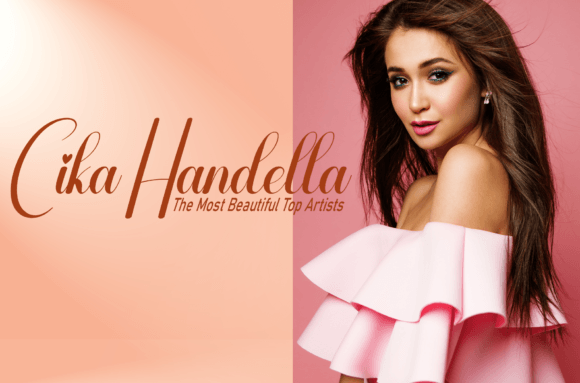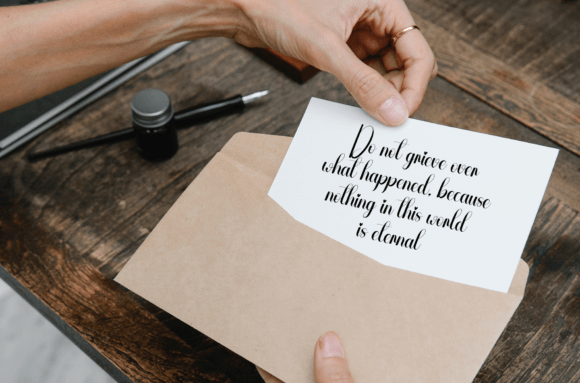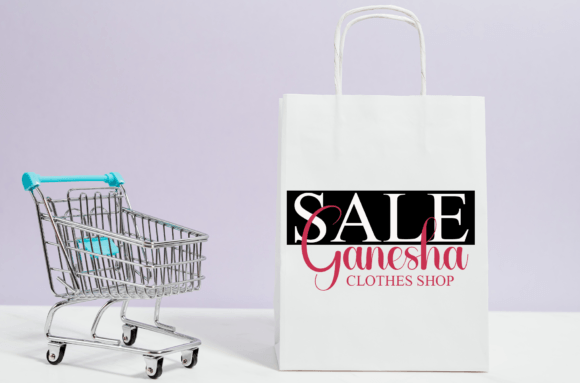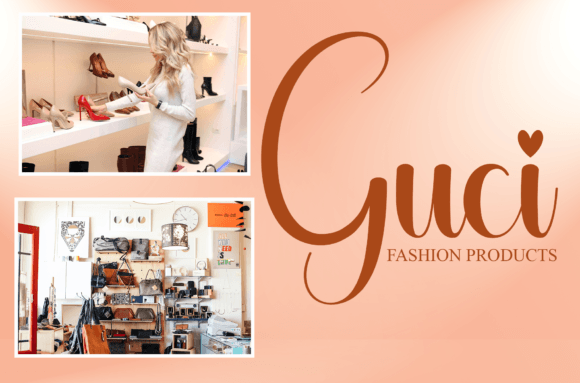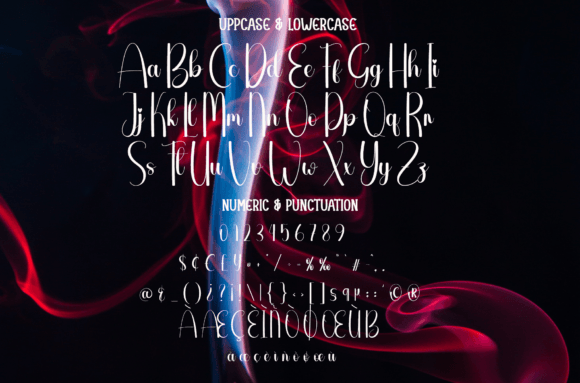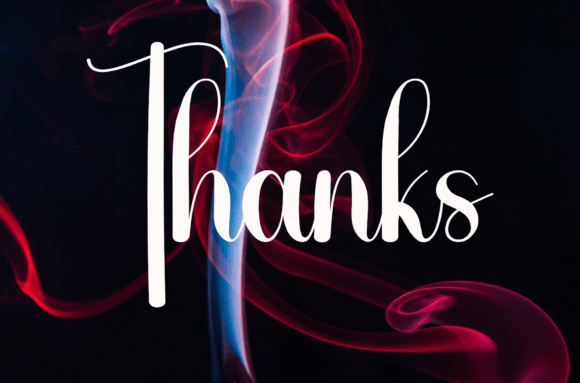
Introducing Effect Font: The Sweet and Friendly Handwritten Font for Your Creative Projects
Are you looking for a font that can add a touch of warmth and personality to your designs? Look no further than Effect Font, a sweet and friendly handwritten font that’s perfect for a variety of creative projects. In this article, we’ll explore the features and benefits of Effect Font, and show you how it can elevate your designs to the next level.
What is Effect Font?
Effect Font is a beautifully crafted handwritten font that’s fresh, neat, and full of character. Its sweet and friendly tone makes it ideal for designs that require a personal touch, such as wedding invitations, cards, and other special occasion materials. With its clean lines and elegant curves, Effect Font is sure to capture the hearts of designers and crafters alike.
Key Features of Effect Font
- Handwritten with love: Effect Font is carefully crafted to mimic the look and feel of handwritten text, giving your designs a personal and human touch.
- Fresh and neat: The font’s clean lines and simple shapes make it easy to read and versatile enough to use in a variety of contexts.
- Sweet and friendly tone: Effect Font’s friendly tone makes it perfect for designs that require a warm and approachable feel.
- Perfect for creative projects: Whether you’re designing wedding invitations, cards, or other special occasion materials, Effect Font is the perfect choice.
Use Cases for Effect Font
Effect Font is a versatile font that can be used in a variety of creative projects, including:
- Wedding invitations: Add a touch of elegance and romance to your wedding invitations with Effect Font.
- Cards and stationery: Use Effect Font to create beautiful and personalized cards and stationery for special occasions.
- DIY crafts: Effect Font is perfect for DIY crafters who want to add a personal touch to their projects, such as scrapbooking, journaling, and more.
- Digital designs: Use Effect Font in your digital designs, such as social media graphics, blog posts, and more.
Why Choose Effect Font?
With so many fonts to choose from, why should you choose Effect Font? Here are just a few reasons:
- Unique and distinctive: Effect Font is a one-of-a-kind font that’s sure to stand out in a crowd.
- Easy to read: The font’s clean lines and simple shapes make it easy to read, even at small sizes.
- Versatile: Effect Font can be used in a variety of contexts, from digital designs to print materials.
Tips for Using Effect Font
Here are a few tips for getting the most out of Effect Font:
- Use it with contrasting colors: Effect Font looks best when paired with contrasting colors that make it stand out.
- Experiment with different sizes: Effect Font can be used at a variety of sizes, from small captions to large headings.
- Pair it with other fonts: Effect Font can be paired with other fonts to create a unique and interesting look.
Effect Font is a sweet and friendly handwritten font that’s perfect for designers and crafters who want to add a personal touch to their projects. With its fresh and neat design, Effect Font is ideal for a variety of creative projects, from wedding invitations to DIY crafts. Whether you’re a seasoned designer or just starting out, Effect Font is a great choice for anyone looking to add a little warmth and personality to their designs.